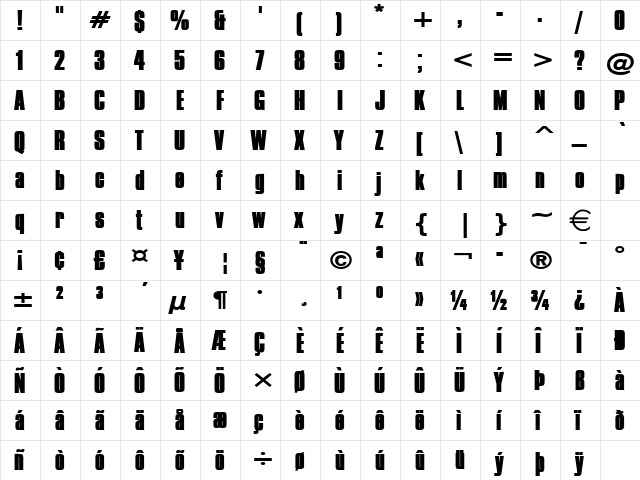
CommadorWideHeavy Normal
Design Context for CommadorWideHeavy Typeface
CommadorWideHeavy is a composed and adaptable typeface that performs quietly and consistently across a wide range of design contexts.